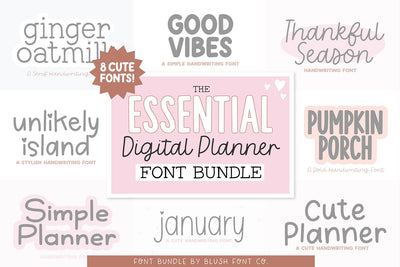
Essential Digital Planner Handwriting Font Bundle V1
The ESSENTIAL Digital Planner Handwriting Font Bundle. 8 cute and clean handwritten fonts made for Goodnotes and digital planners.
Fonts included:
Cute Planner
Ginger Oatmilk
Simple Planner
Thankful Season
January
Pumpkin Porch
Good Vibes
Unlikely Island